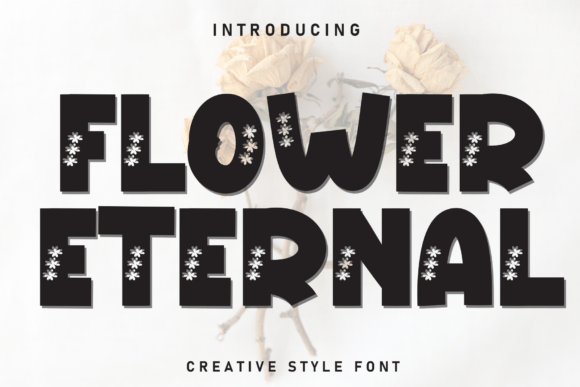
Introducing Flower Eternal Font: The Perfect Blend of Clarity and Relaxed Elegance
In the world of typography, fonts play a crucial role in conveying the tone and personality of a brand or design. When it comes to creating a lasting impression, the right font can make all the difference. This is where Flower Eternal Font comes into play – a neat and casual display font that seamlessly blends clarity with a relaxed, approachable vibe.
What is Flower Eternal Font?
Flower Eternal Font is a thoughtfully designed display font that boasts clean lines and friendly letterforms. Its primary goal is to provide a modern yet laid-back feel to headlines, posters, packaging, and branding. With a balanced structure and playful energy, this font brings personality to any project without overwhelming the message.
Key Features of Flower Eternal Font
- Clean Lines: The font features clean and well-defined lines, ensuring that it remains clear and legible even at larger sizes.
- Friendly Letterforms: The letterforms are designed to be friendly and approachable, making the font perfect for designs that require a more relaxed tone.
- Balanced Structure: The font has a well-balanced structure, which ensures that it remains visually appealing and easy to read.
- Playful Energy: Despite its clean and modern look, Flower Eternal Font has a playful energy that adds personality to any design.
Use Cases for Flower Eternal Font
Flower Eternal Font is an incredibly versatile font that can be used in a variety of design applications. Here are some of the most popular use cases:
- Headlines: The font’s clean lines and friendly letterforms make it perfect for headlines that require a modern yet laid-back feel.
- Posters: Whether you’re designing a poster for a concert, festival, or sale, Flower Eternal Font is an excellent choice.
- Packaging: The font’s playful energy and balanced structure make it ideal for packaging designs that require a friendly and approachable tone.
- Branding: Flower Eternal Font is perfect for brands that want to convey a modern yet laid-back personality.
Benefits of Using Flower Eternal Font
So, why should you choose Flower Eternal Font for your next design project? Here are some of the benefits of using this font:
- Improved Readability: The font’s clean lines and balanced structure ensure that it remains easy to read, even at larger sizes.
- Enhanced Personality: Flower Eternal Font adds a playful energy to any design, making it perfect for brands that want to convey a friendly and approachable tone.
- Versatility: The font can be used in a variety of design applications, from headlines and posters to packaging and branding.
- Modern yet Laid-Back: Flower Eternal Font is perfect for designs that require a modern yet laid-back feel.
Tips for Using Flower Eternal Font Effectively
To get the most out of Flower Eternal Font, here are some tips to keep in mind:
- Use it for Headlines: The font is perfect for headlines, so use it to grab attention and convey the main message.
- Pair it with Other Fonts: Flower Eternal Font can be paired with other fonts to create a unique and visually appealing design.
- Experiment with Sizes: Don’t be afraid to experiment with different sizes to find the perfect balance for your design.
- Keep it Simple: While Flower Eternal Font is a playful font, it’s essential to keep the design simple and easy to read.
In conclusion, Flower Eternal Font is an excellent choice for designers who want to add a touch of personality to their designs. With its clean lines, friendly letterforms, and balanced structure, this font is perfect for headlines, posters, packaging, and branding. Whether you’re looking for a modern yet laid-back feel or a playful energy, Flower Eternal Font is an excellent choice.
- What is Flower Eternal Font? Flower Eternal Font is a neat and casual display font that blends clarity with a relaxed, approachable vibe.
- What are the key features of Flower Eternal Font? The font features clean lines, friendly letterforms, a balanced structure, and a playful energy.
- What are the use cases for Flower Eternal Font? The font can be used for headlines, posters, packaging, and branding.
- What are the benefits of using Flower Eternal Font? The font offers improved readability, enhanced personality, versatility, and a modern yet laid-back feel.